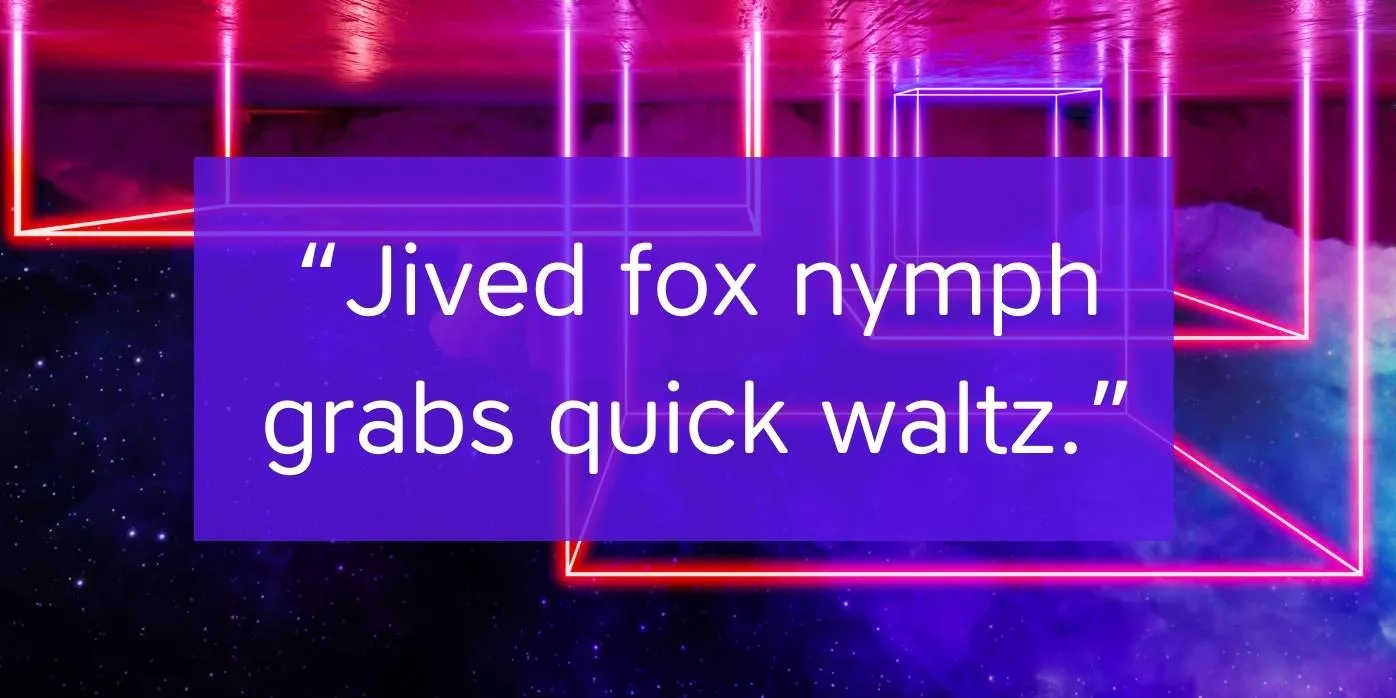
Core Sans Font
Core Sans Font was designed by S-Core. This cozy typeface belongs to the Sans-Serif font family. The shapes of the letters look like they were carved out of a piece of wood. The edges are slightly rounded, and the overall font appears very naturalistic.
This typeface is best for Adobe. It is specified by the CSS Family. This stylish Font has 6 different styles which you can use depending on the message you want to deliver with your text. The styles are Regular, Italic, Bold, Bold Italic, Black, and Black Italic.
This staggering Font will make your text look professional and easy to read.